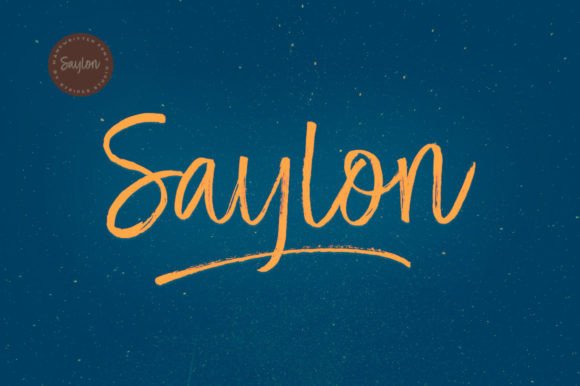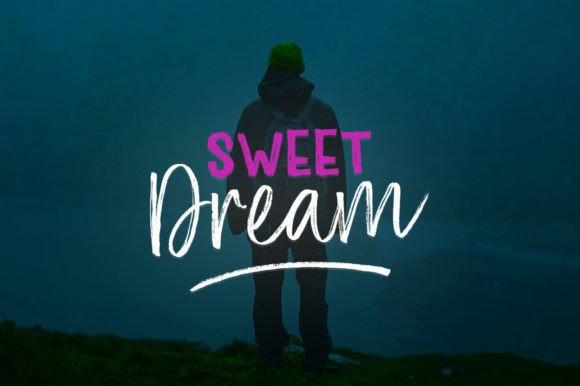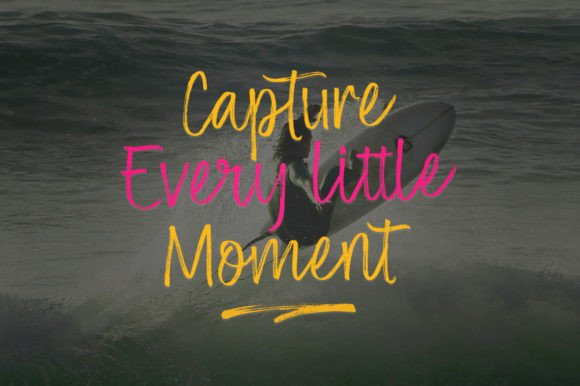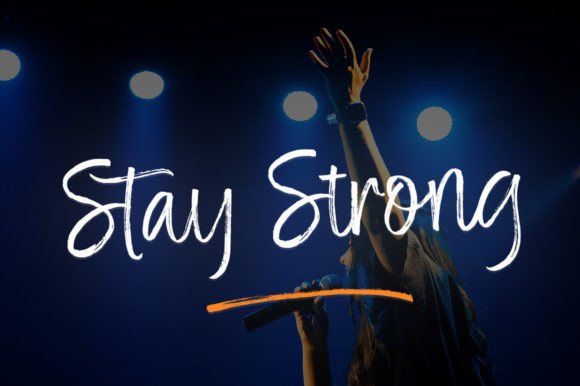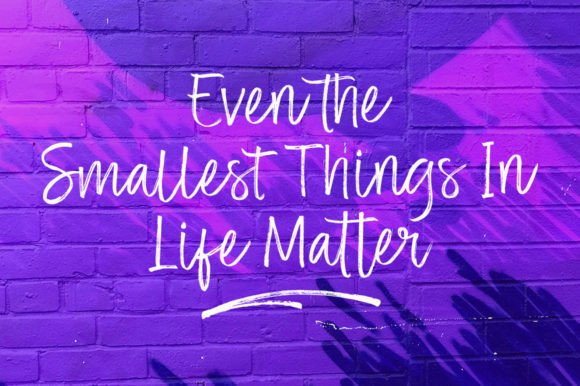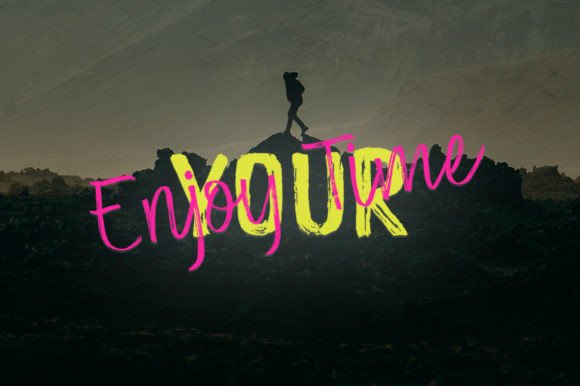
Saylon Font
About Saylon Font
Saylon Font is a romantic brushed calligraphy typeface designed to bring luxury and elegance to any design it graces. Featuring smooth, flowing strokes and stylish swashes, this font exudes both sophistication and personality. Its beautifully irregular baseline gives each character a gentle dancing movement, perfect for adding a natural handwritten flair to your projects.
With its graceful appearance, Saylon Font is ideal for creatives seeking a premium handwritten aesthetic. It’s especially effective for projects that demand a classy, yet approachable handwritten feel—from wedding stationery to elegant branding materials.
Where to Use Saylon Font
The versatility of Saylon Font makes it a fantastic choice for a wide variety of design applications. This includes:
• 💌 Wedding Invitations – Add a romantic, hand-lettered elegance
• 💼 Brand Logos – Ideal for luxury, fashion, or boutique brands
• 🖋️ Signature Logos & Watermarks – Create a stylish personal brand
• 📜 Greeting Cards – For heartfelt messages and occasions
• 📱 Social Media Graphics – Add charm and flow to Instagram or Pinterest posts
• 🎁 Product Packaging – A great fit for beauty, handmade goods, or gourmet labels
• ✅ Brushed Calligraphy Style – Natural strokes with smooth movement
• ✅ Stylish Alternates – Customize text with elegant variations
• ✅ Romantic & Luxurious Look – Ideal for upscale creative designs